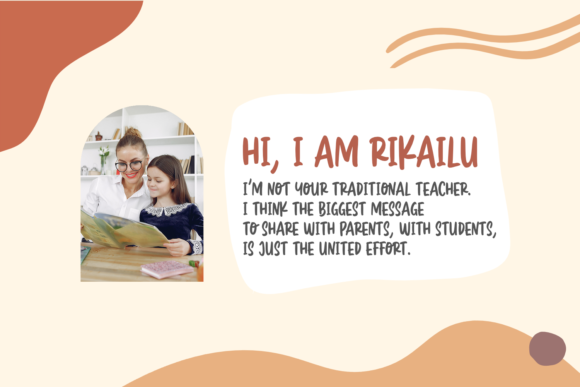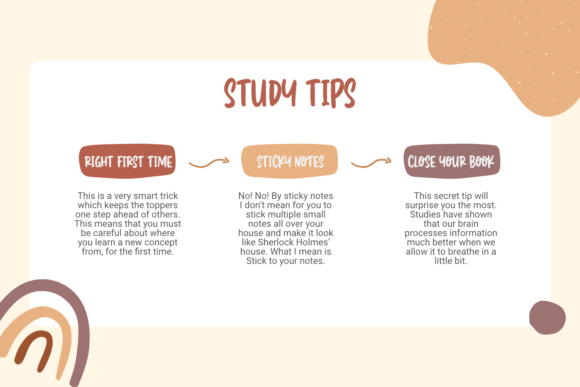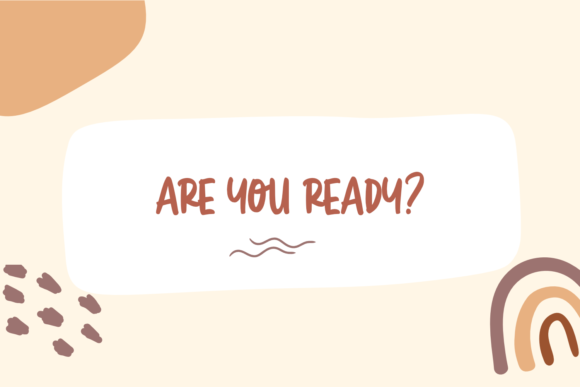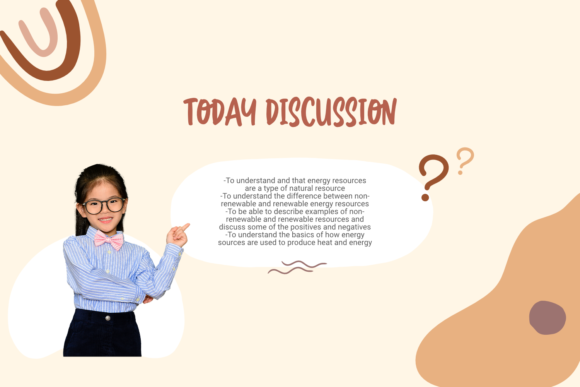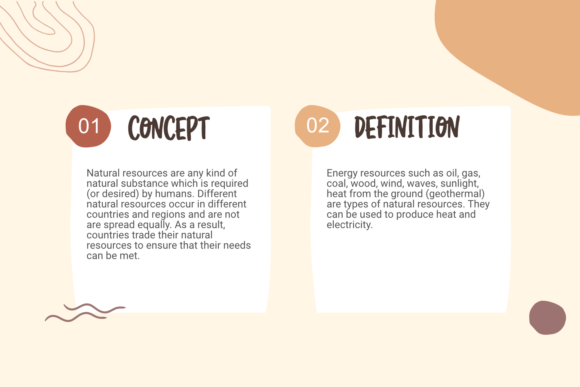
About Greatly Desired Font
Greatly Desired is a fun, quirky and casual handwritten font. No matter the topic, this font will be an incredible asset to your fonts’ library, as it has the potential to elevate any creation.